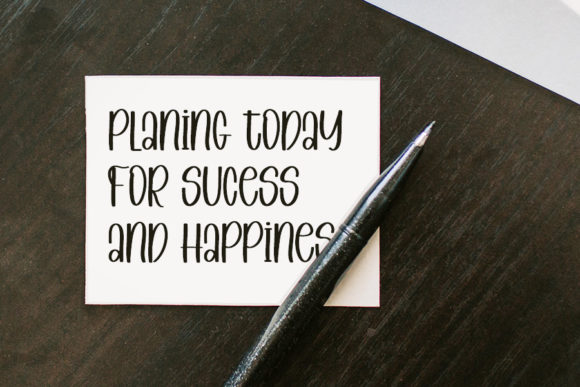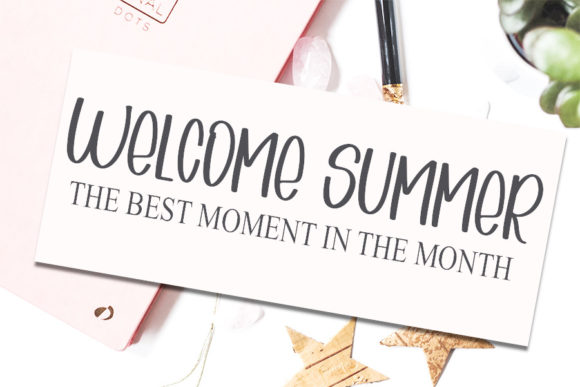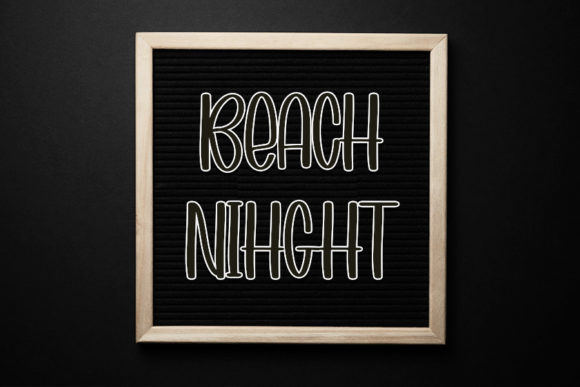
About Baby Shark Font
Baby Shark is a friendly and joyful handwritten font. Whimsical and a bit quirky, this font will brighten up each of your designs. Add it confidently to your projects, and you will love the results.